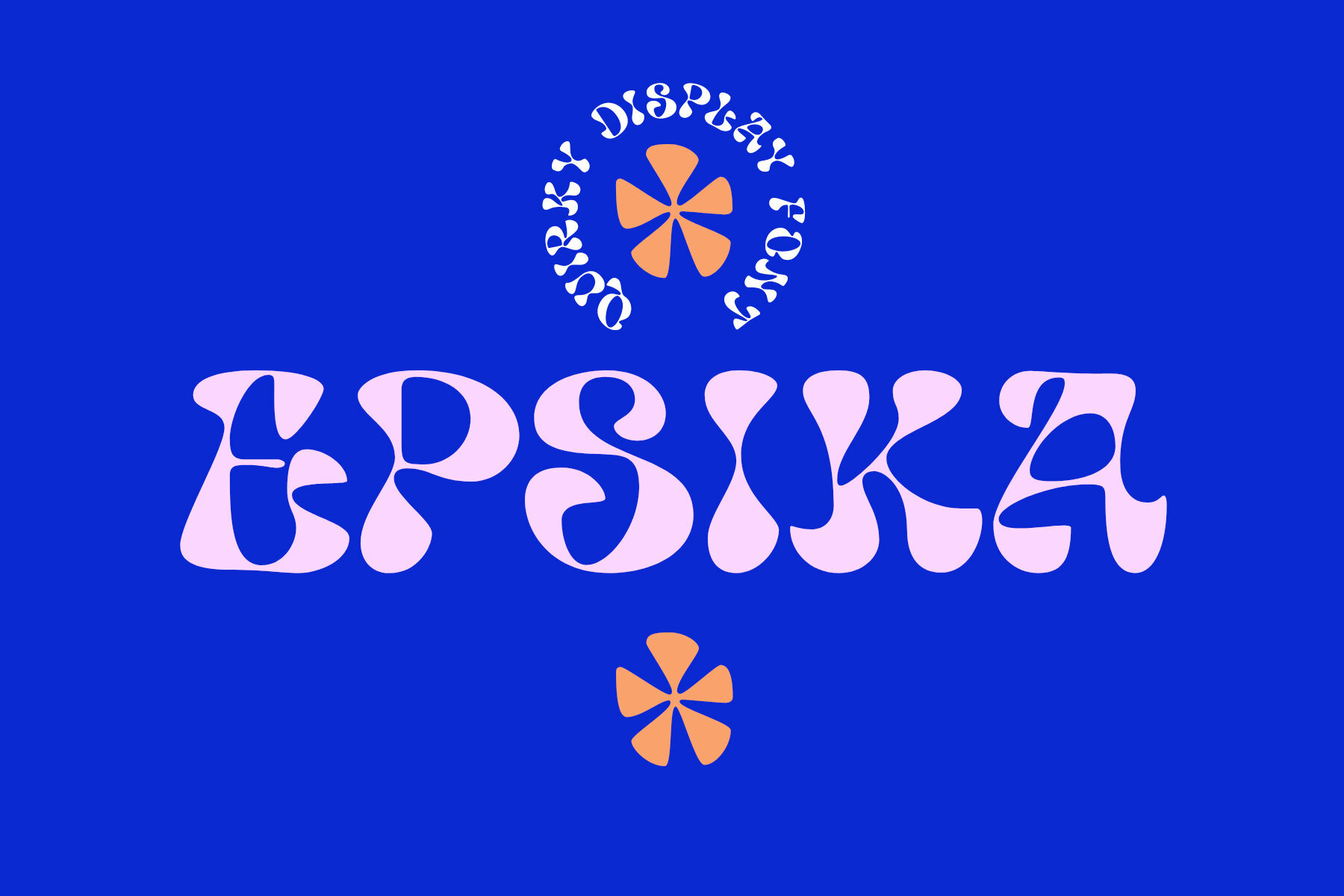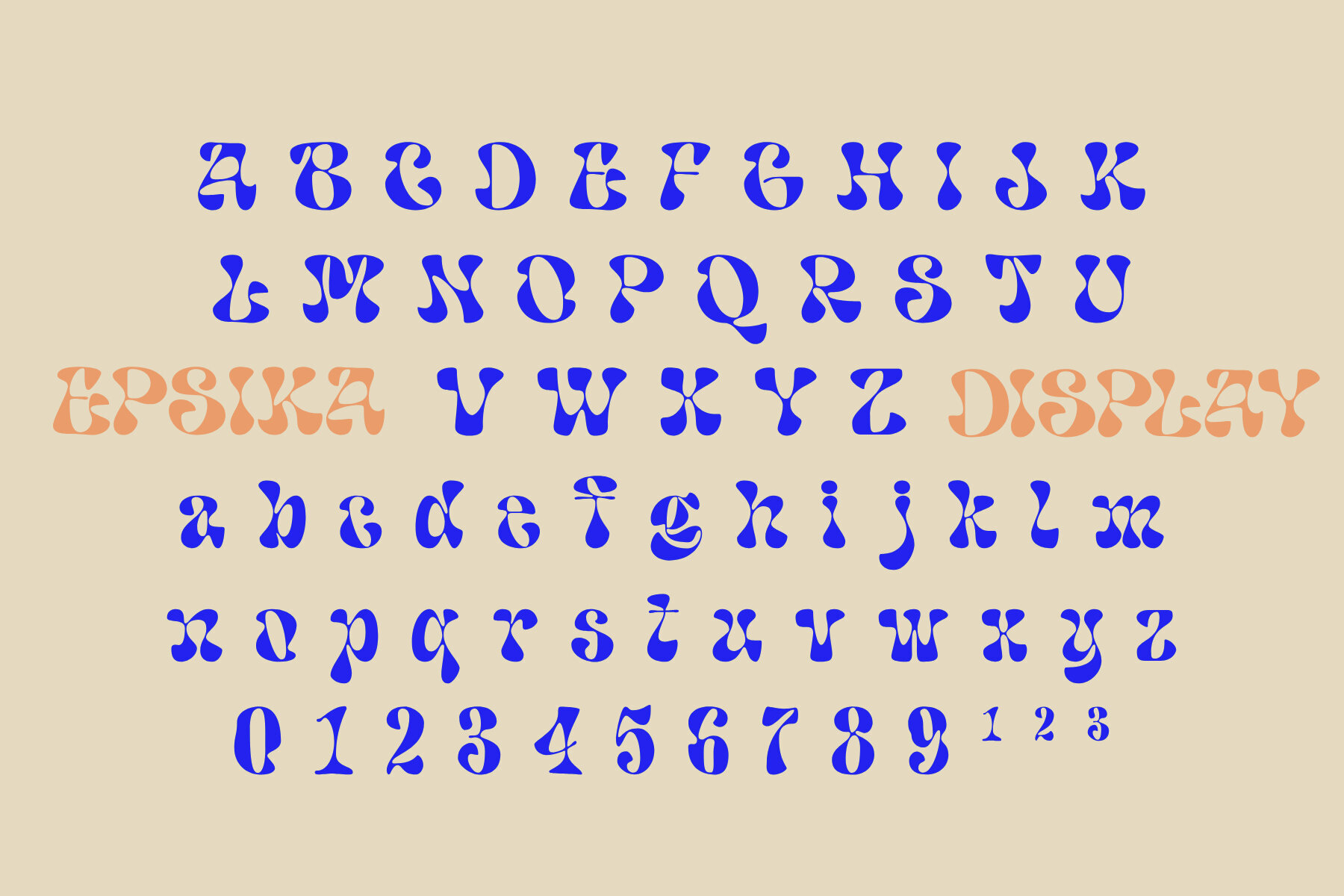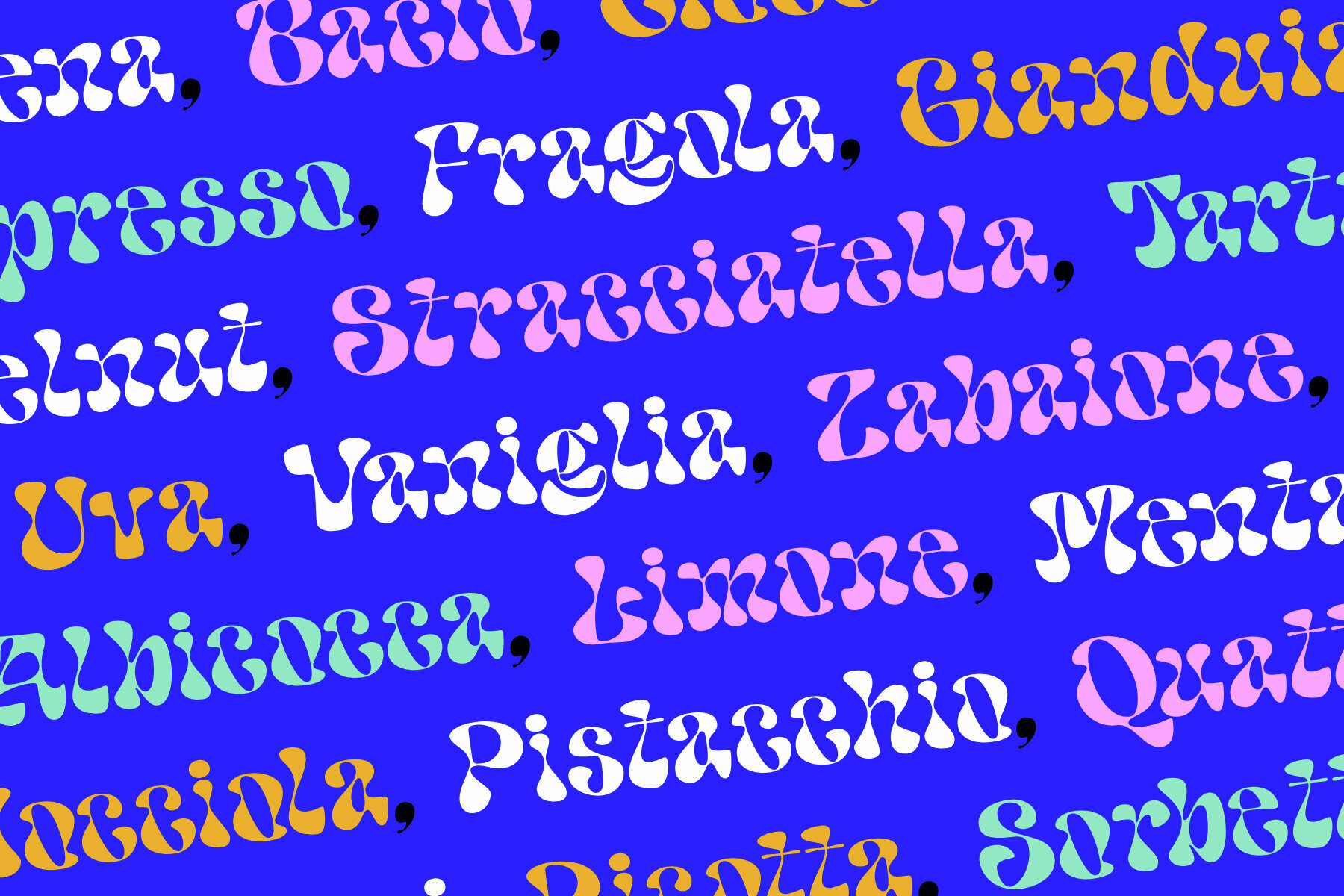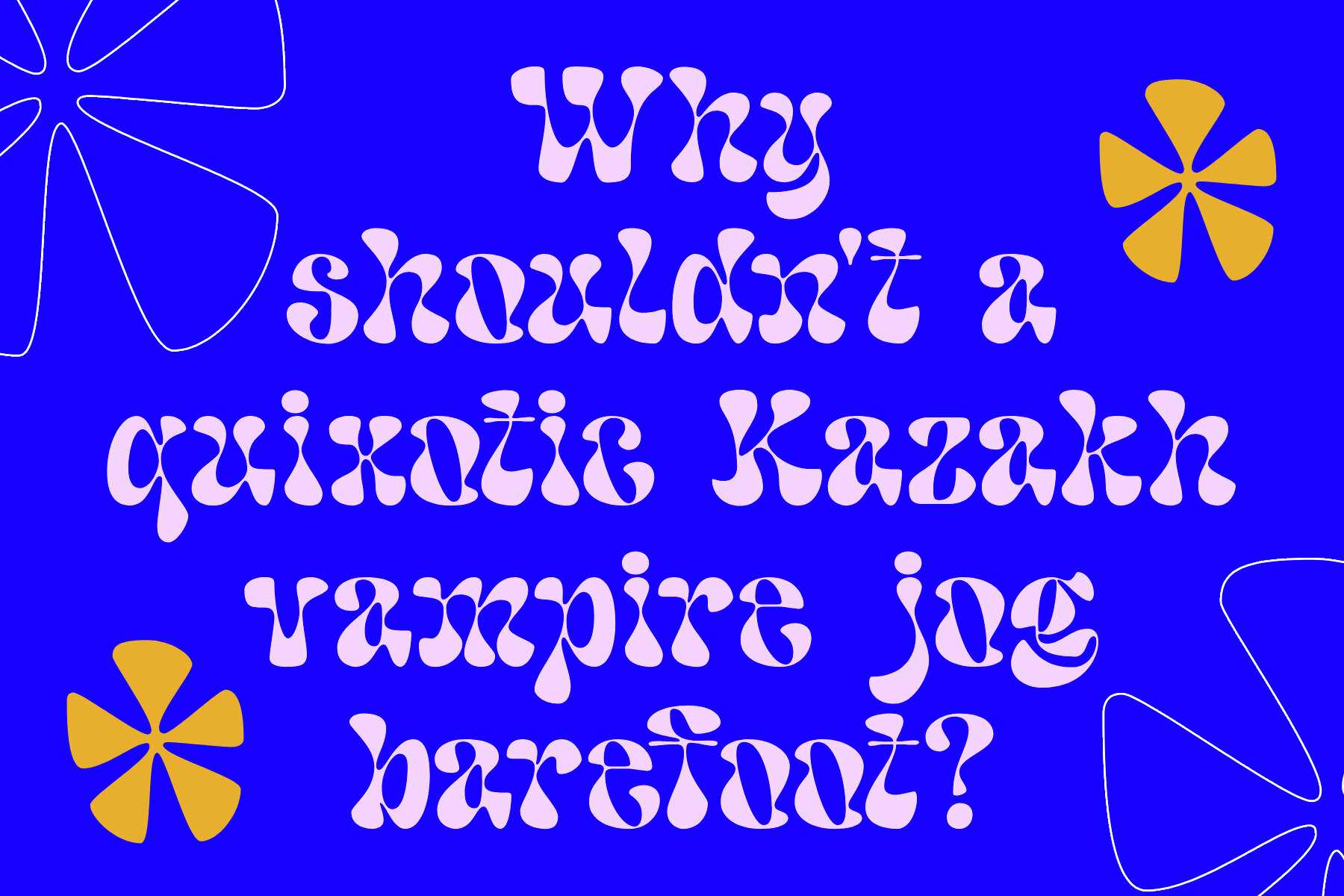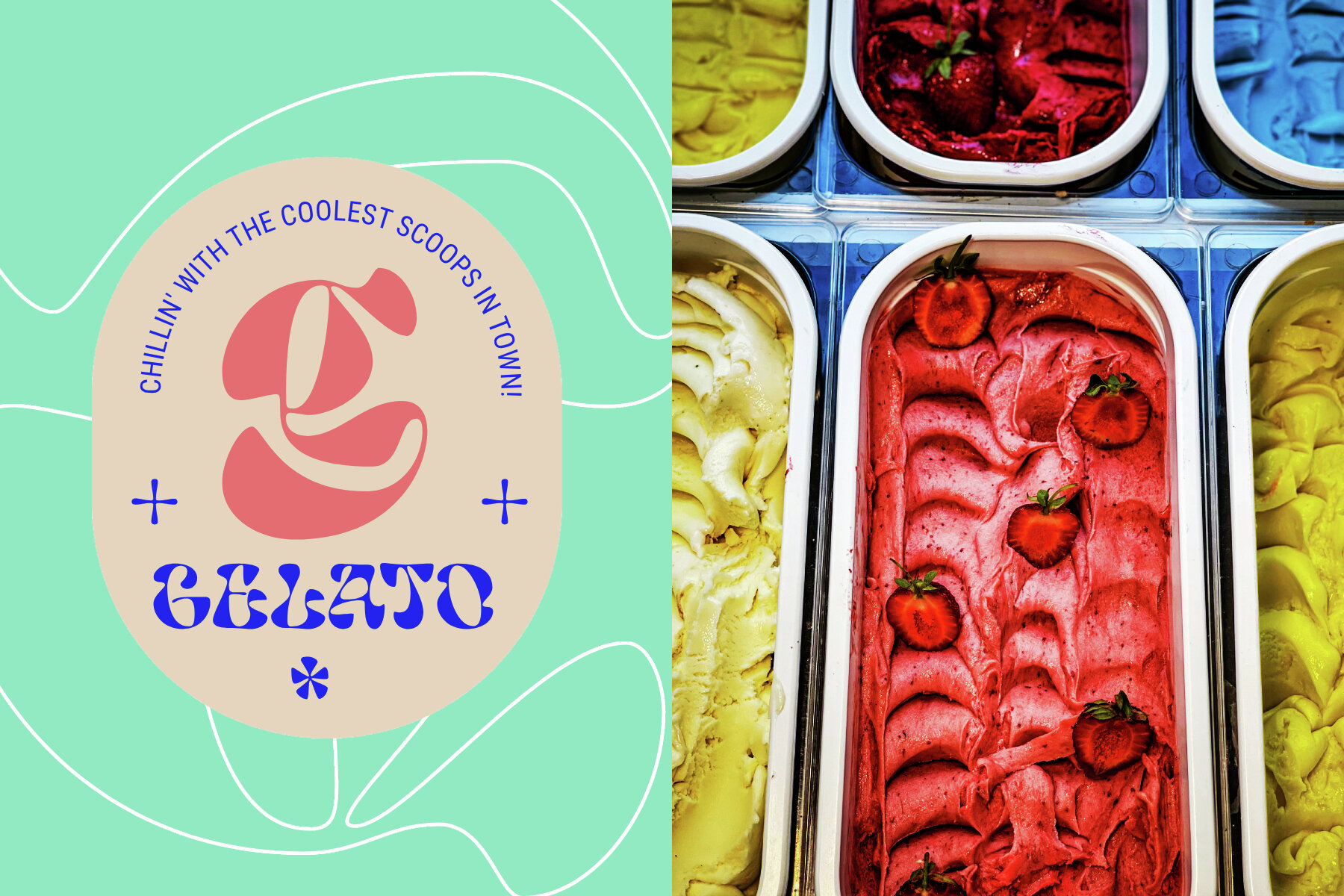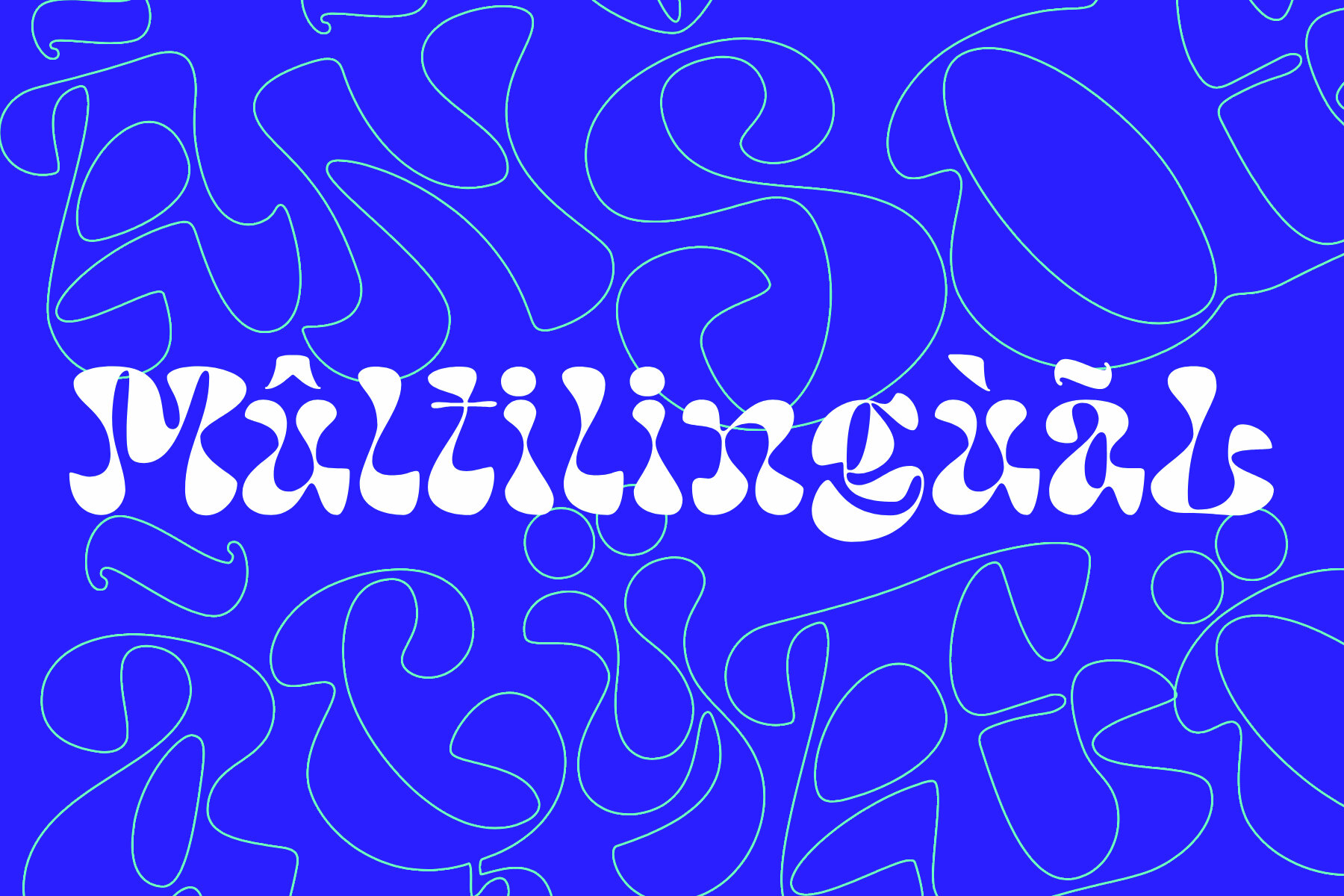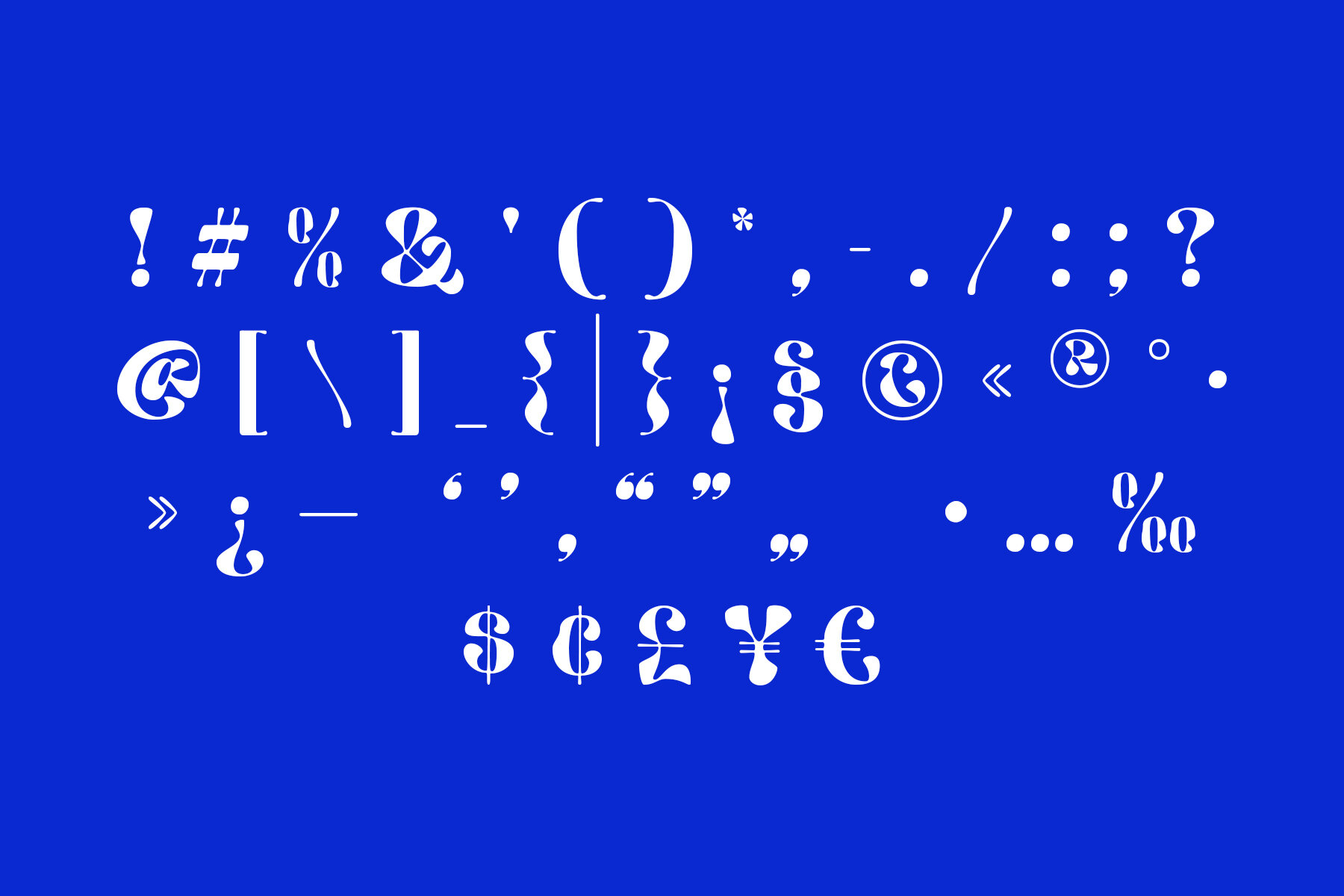
Epsika Font
Epsika Regular
Epsika is a quirky and curvy display font. It takes a modern approach to a more classic groovy retro style - making it an excellent choice for branding projects. It includes multilingual characters and punctuation for maximum usability.